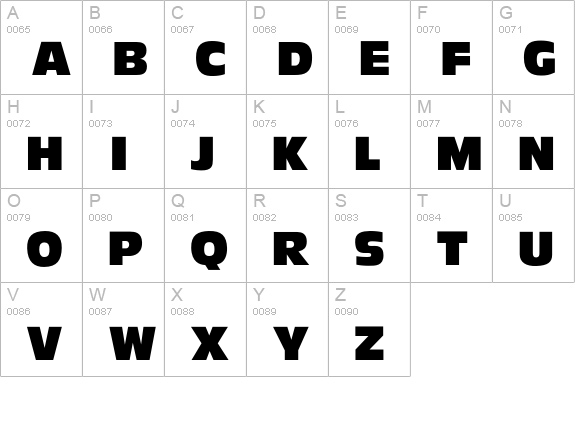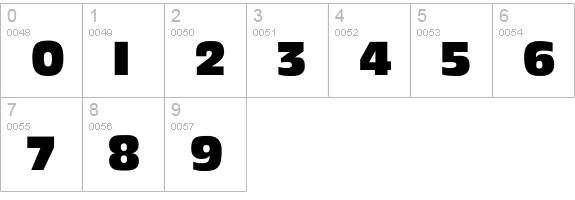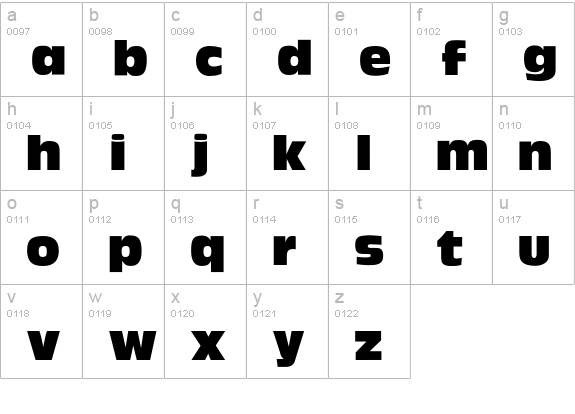
OliveAntiqueBlack Font Details
OliveAntiqueBlack font is a classic and elegant typeface that exudes sophistication and charm. With its timeless design and intricate details, this font is perfect for adding a touch of vintage flair to your projects. The bold black weight of OliveAntiqueBlack commands attention and makes a statement, making it ideal for headlines, logos, and other prominent text elements. What sets OliveAntiqueBlack font apart is that it is not only visually striking but also versatile and easy to read. Its clean lines and well-balanced proportions ensure clarity and legibility, making it suitable for a wide range of design applications. Best of all, OliveAntiqueBlack font is completely free to download at FontsMarket.com. Whether you're working on a personal project or a professional design, this font is a valuable addition to your typographic toolkit. Don't miss out on the opportunity to enhance your designs with the timeless beauty of OliveAntiqueBlack font.